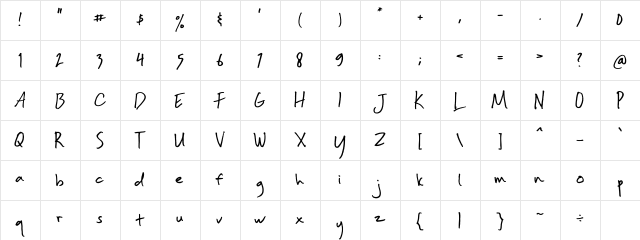
Biasa Regular Font Preview
Biasa Regular
Design Context for Biasa Typeface
Biasa is a composed and adaptable typeface that performs quietly and consistently across a wide range of design contexts.